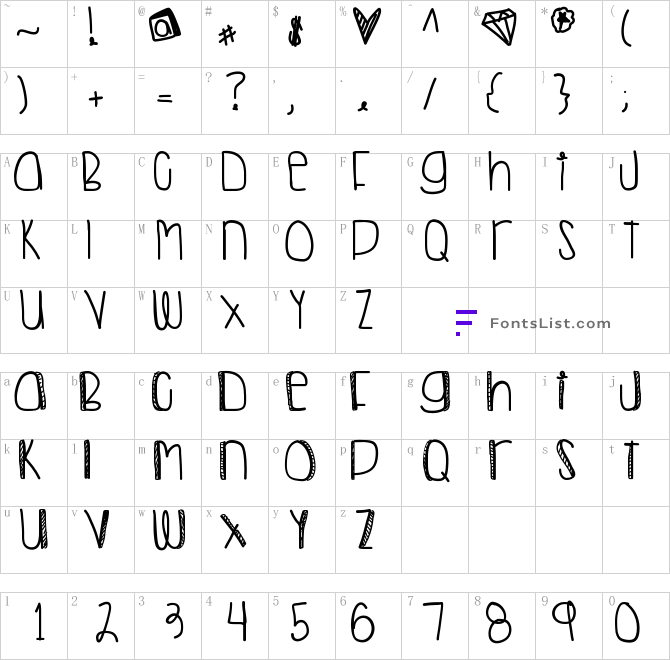
- Font Name:AnotherNightOut
AnotherNightOut.ttf is a very beautiful artistic font, AnotherNightOut.ttf is widely used in the design and printing of various books and pictures,AnotherNightOut.ttf has a strong visual impact,AnotherNightOut.ttf is a commonly used font in newspapers, magazines and books, and is used in posters, e-commerce Poster design, store design, logo design, font design and other fields.AnotherNightOut.